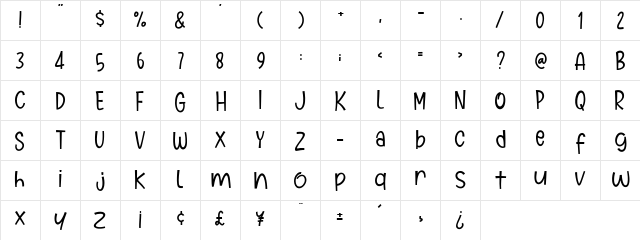
Marie Clara Regular
| Foundry | Khurasan |
| Designer | Khurasan |
Design Context for Marie Clara Typeface
Marie Clara is a composed and adaptable typeface that performs quietly and consistently across a wide range of design contexts.